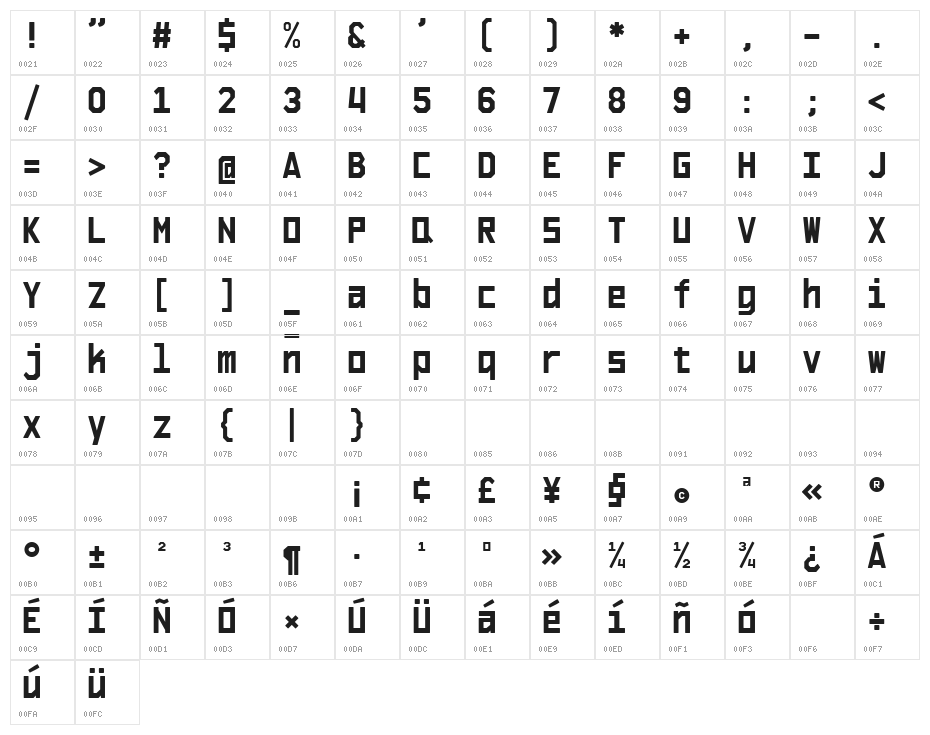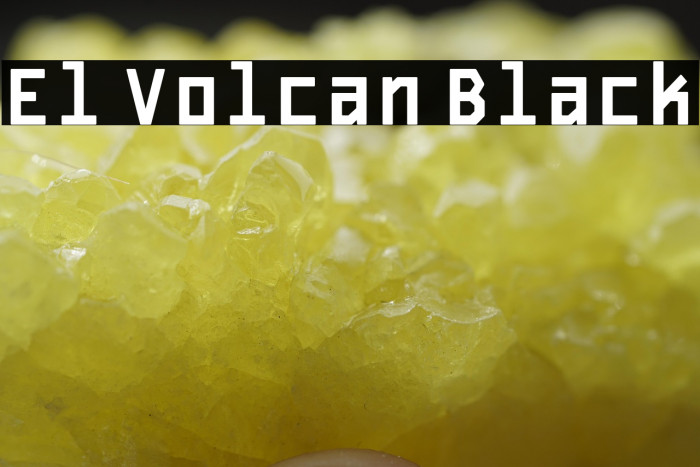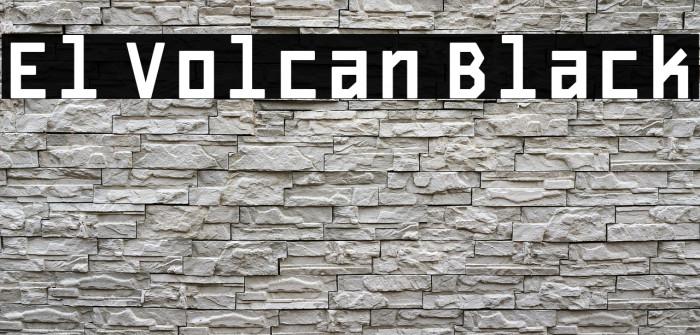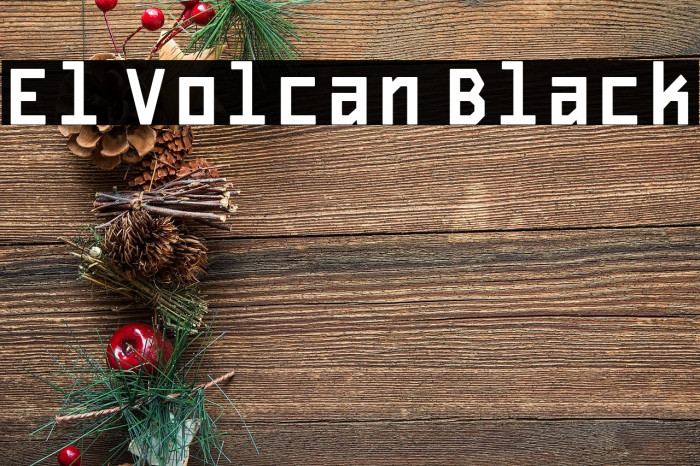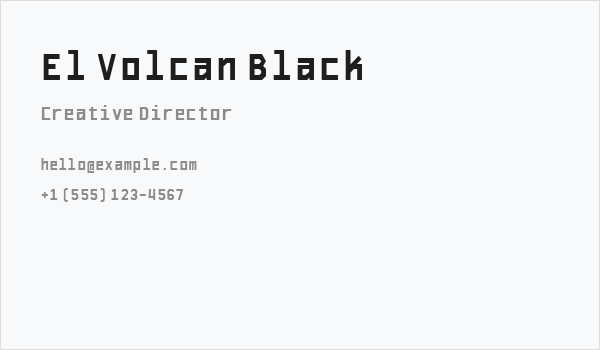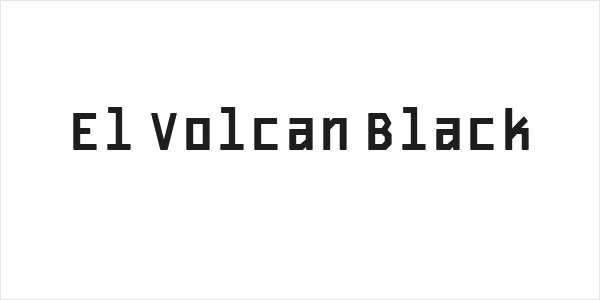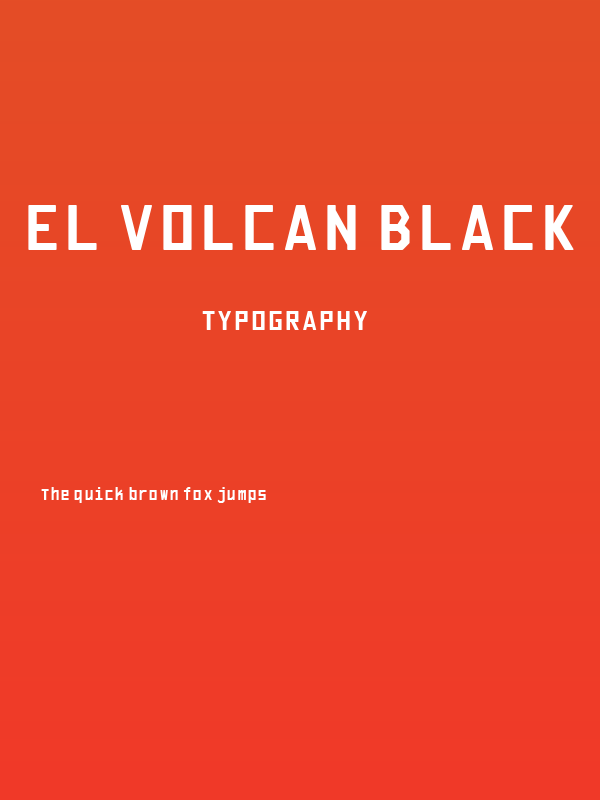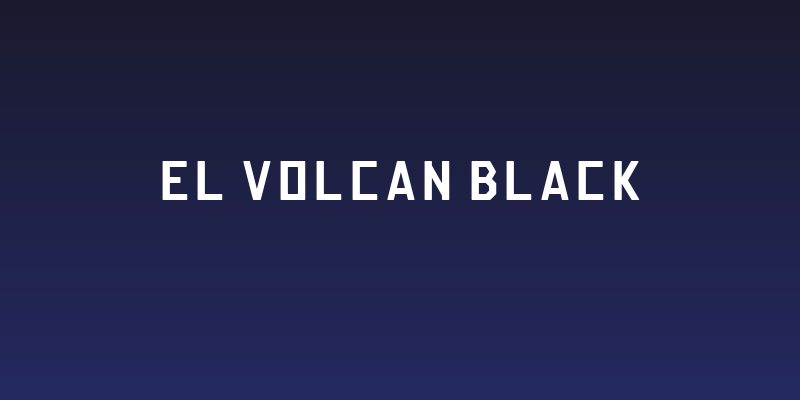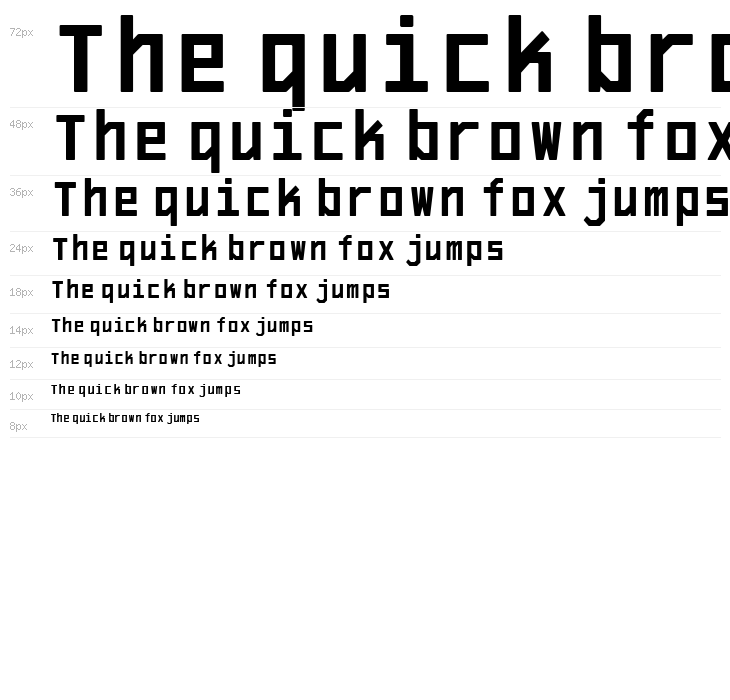
El Volcan Black Font
El Volcan Black Description
This font features a bold, geometric style with a strong presence. The characters are constructed with sharp angles and straight lines, giving it a modern and industrial feel. The uppercase letters are particularly striking, with a uniform height and width that create a cohesive look. The lowercase letters maintain the same geometric structure, ensuring readability while adding a touch of uniqueness. Numbers and special characters follow the same design principles, making them easily distinguishable. This font's boldness and clarity make it suitable for impactful designs.
| Proposed Projects | Ideal for branding, posters, headlines, and any design requiring a strong visual impact. |